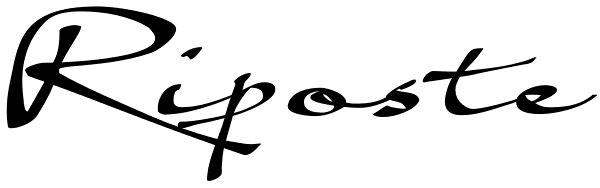
Riposte
Riposte is a powerful and carefully-integrated handwriting font. You should use it where you want to create a strong impact but want to avoid heavy, boxy, formal fonts. The characters were designed for excellent letter-spacing without kerning, but...